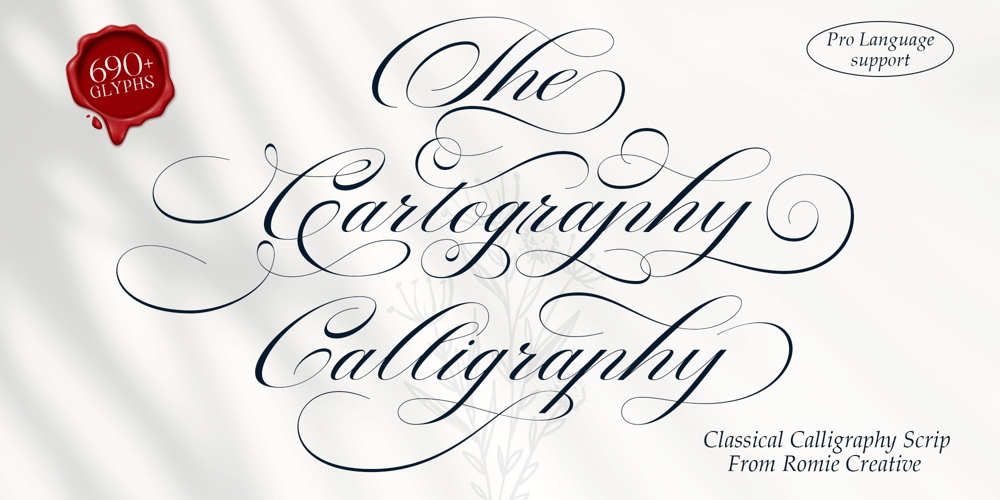
The Cartography Calligraphy Font Family was designed by Romi Rahmadi and published by Romie Creative. The Cartography Calligraphy contains 1 styles and family package options. The Cartography is a calligraphy script font that comes with very beautiful changing characters, a kind of classic decorative copper script with a modern touch, designed with high detail to bring stylish elegance. The Cartography Calligraphy is attractive as a typeface that is smooth, clean, feminine, sensual, glamorous, simple and very easy to read, because there are many fancy letter connections. I also offer a number of viable style alternatives for many letters. The classic style is perfect to be applied in various formal forms such as invitations, labels, restaurant menus, logos, fashion, make up, stationery, novels, magazines, books, greeting / wedding cards, packaging, labels or any type of advertising purpose.The Cartography Calligraphy is encoded with Unicode PUA, which allows full access to all additional characters without having special design software. Mac users can use Font Book, and Windows users can use Character Map to view and copy one of the extra characters to paste into your favorite text editor / application.If you need help or have questions, please let me know. I’m happy to help.Thanks & Happy Designing!